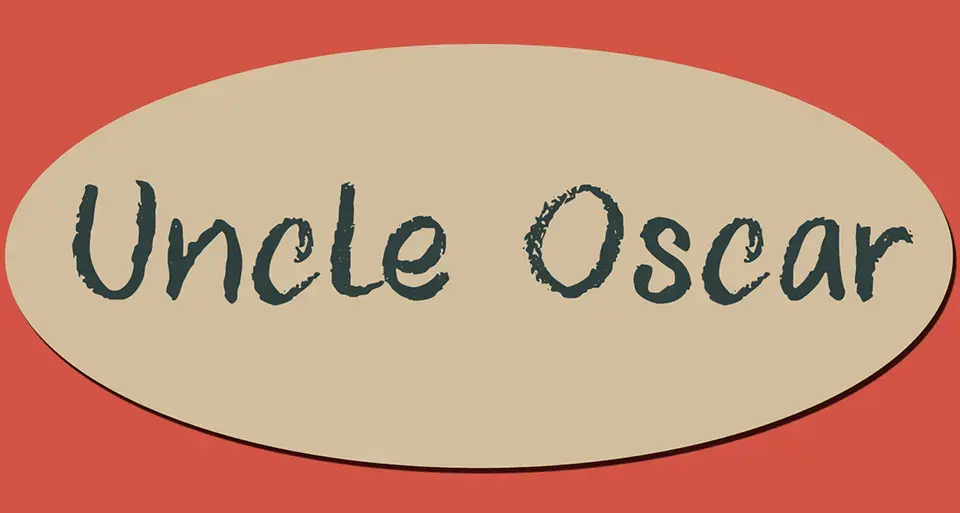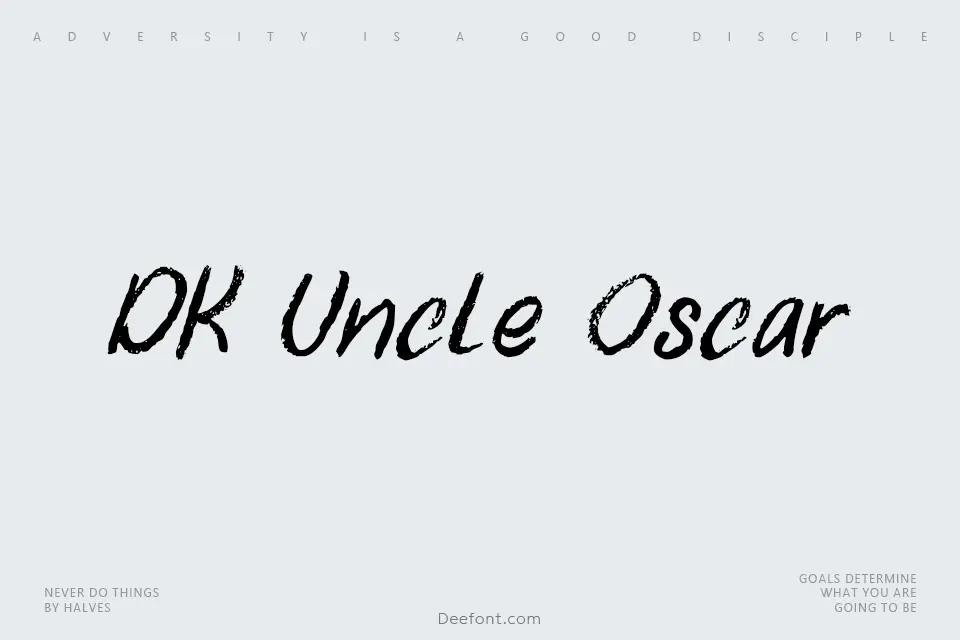
DK Uncle Oscar Font
DK Uncle Oscar is a quirky handwritten chalkboard script with rough pencil edges, casual slant and lively texture. Its playful yet slightly spooky energy makes it perfect for Halloween posters, movie titles, kids book covers, handmade product packaging, cafe menus, party invitations and eye-catching logo or display typography.